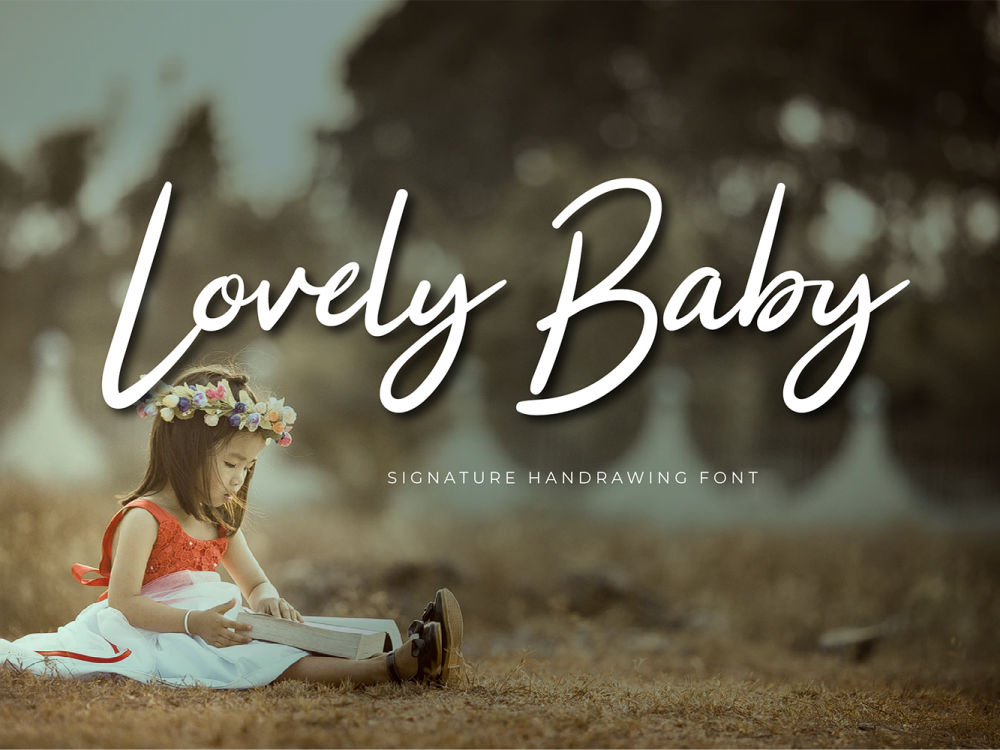
Lovely Baby Free Font
Lovely Baby Free Font is an interesting modern handwritten typeface with an elegant calligraphic style. This font is very suitable for creating various projects that require a script font. Use this font to create memorable romantic posters, wedding invitations, greeting cards, branding, flyers, t-shirt and pillow prints, and more. Improve your professional level using this font. If you like it don’t forget to check out the full version.
Author: Twin Letter